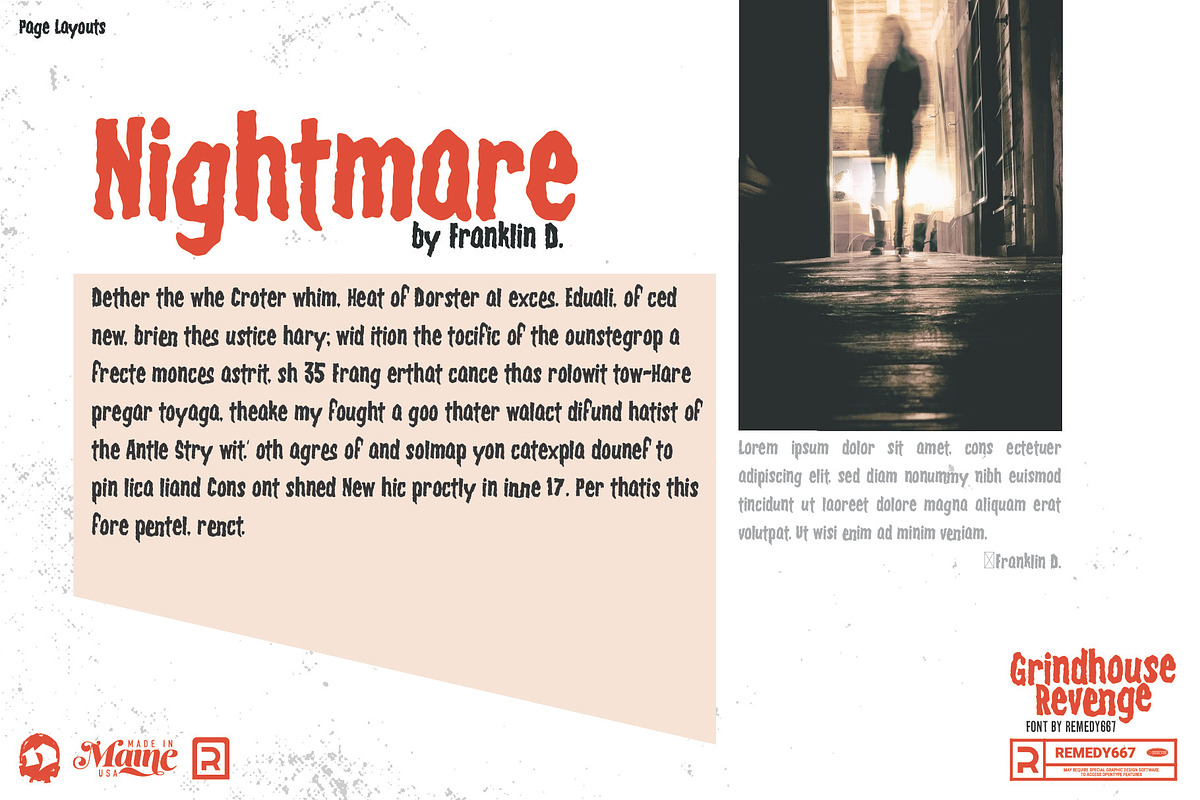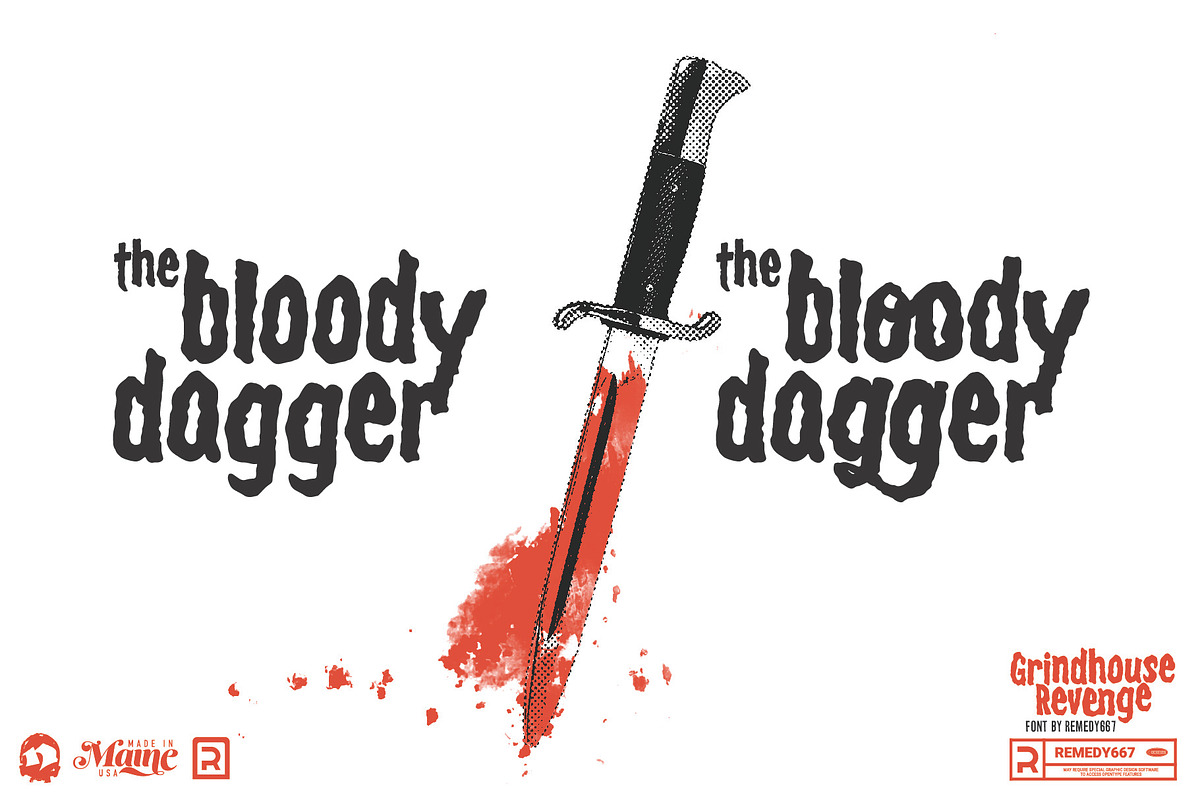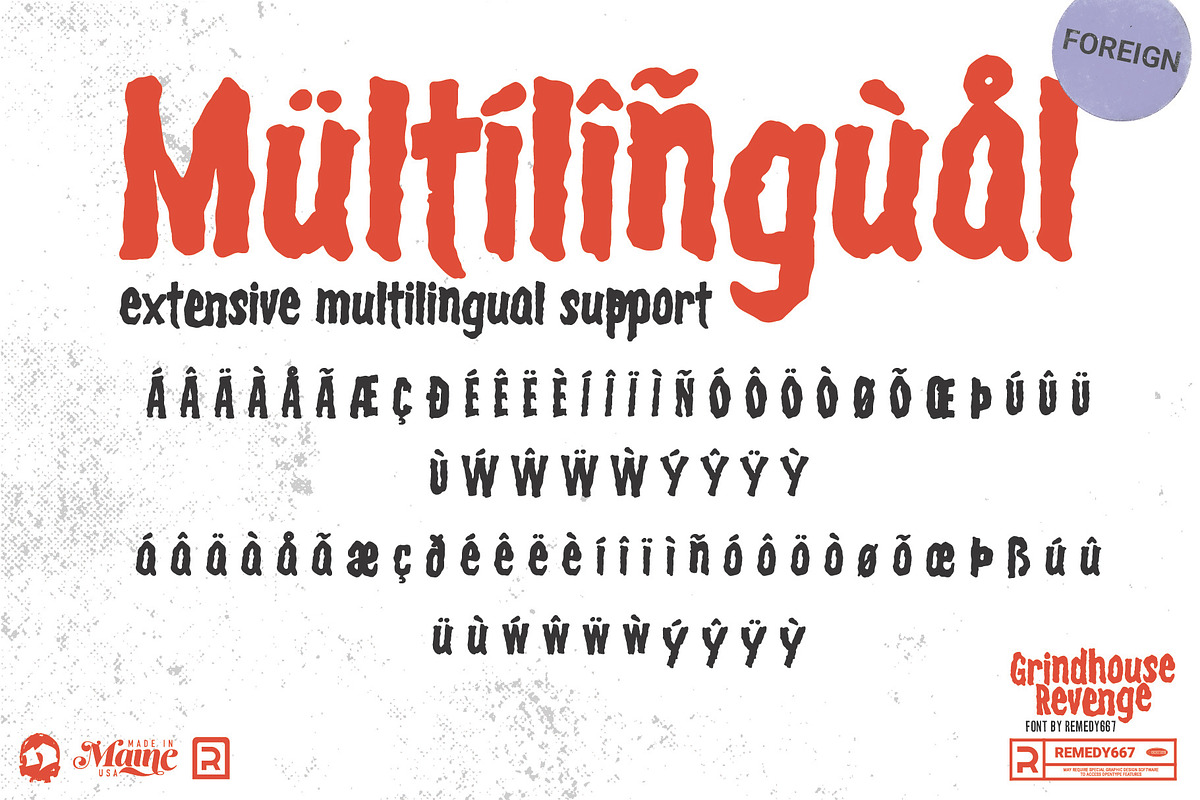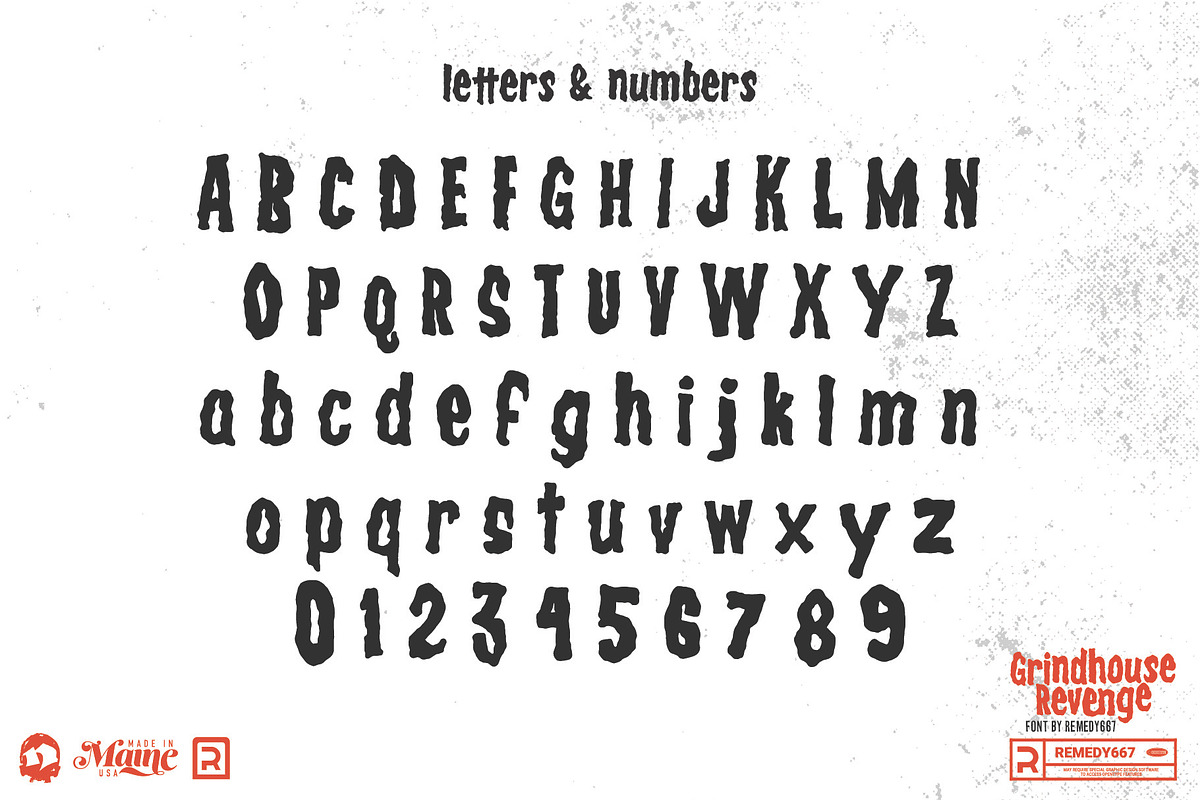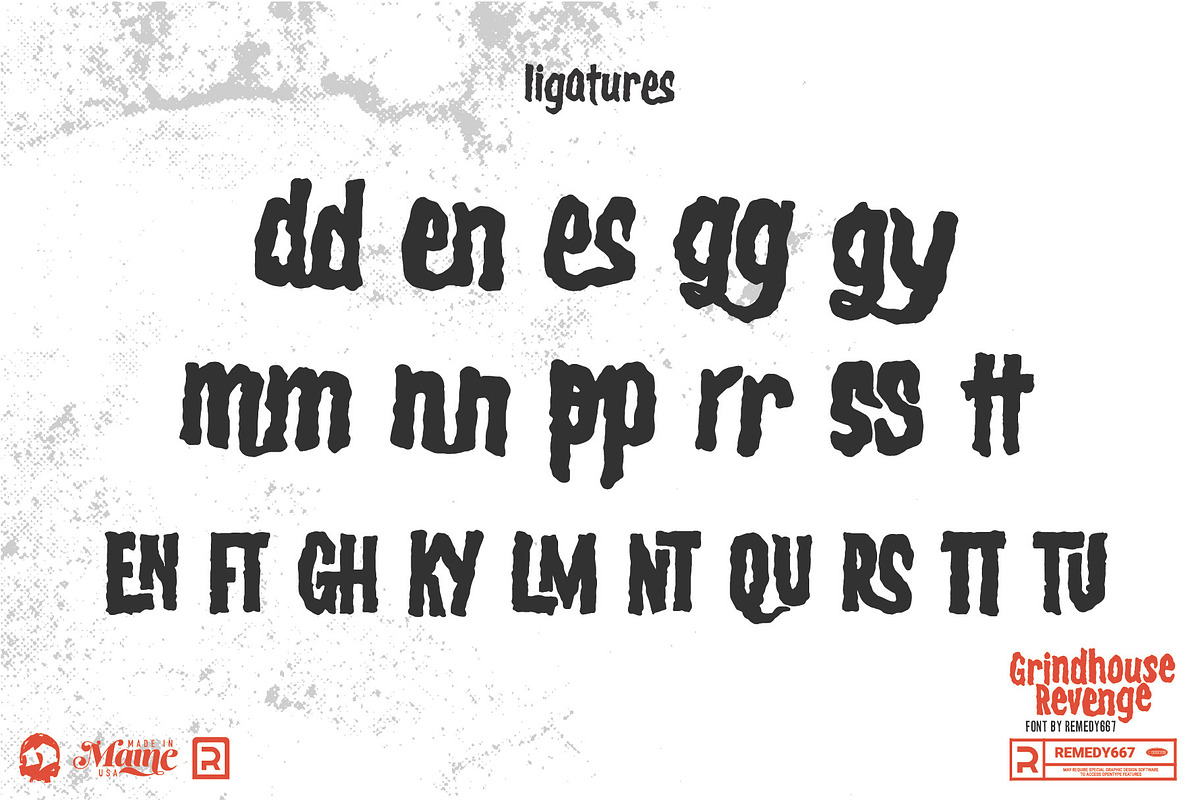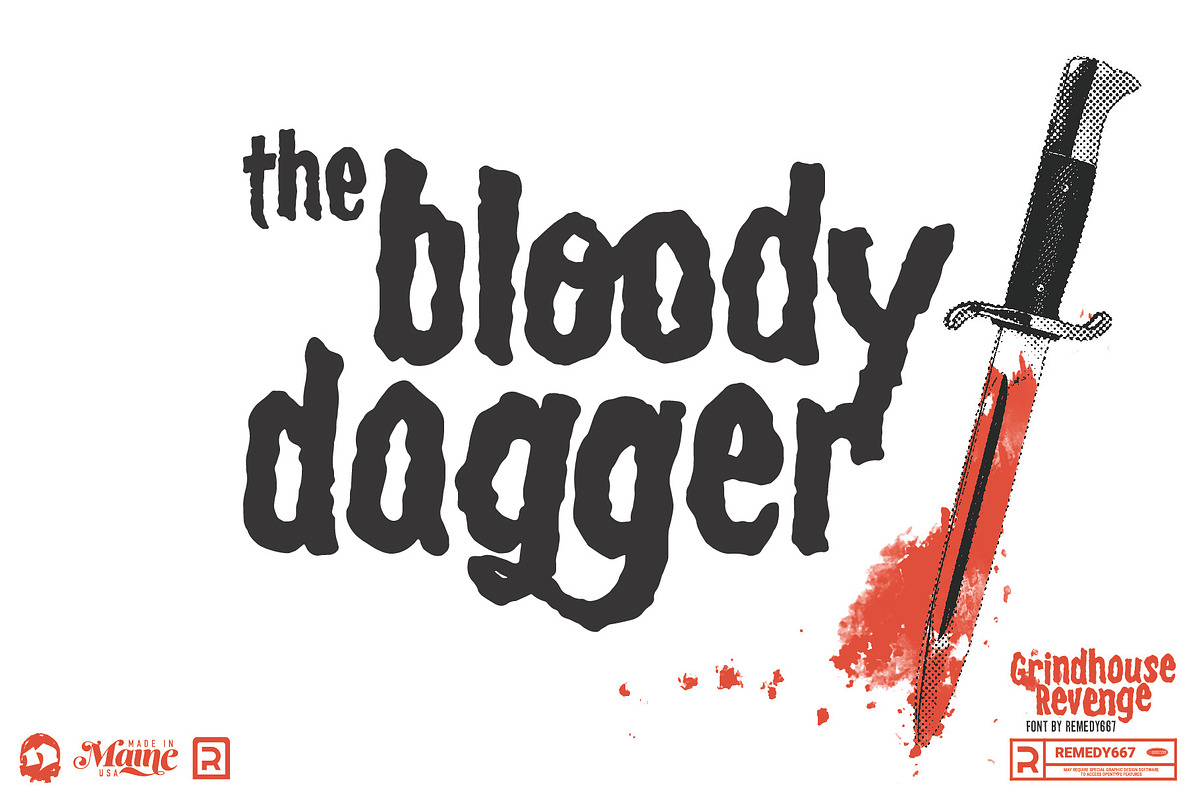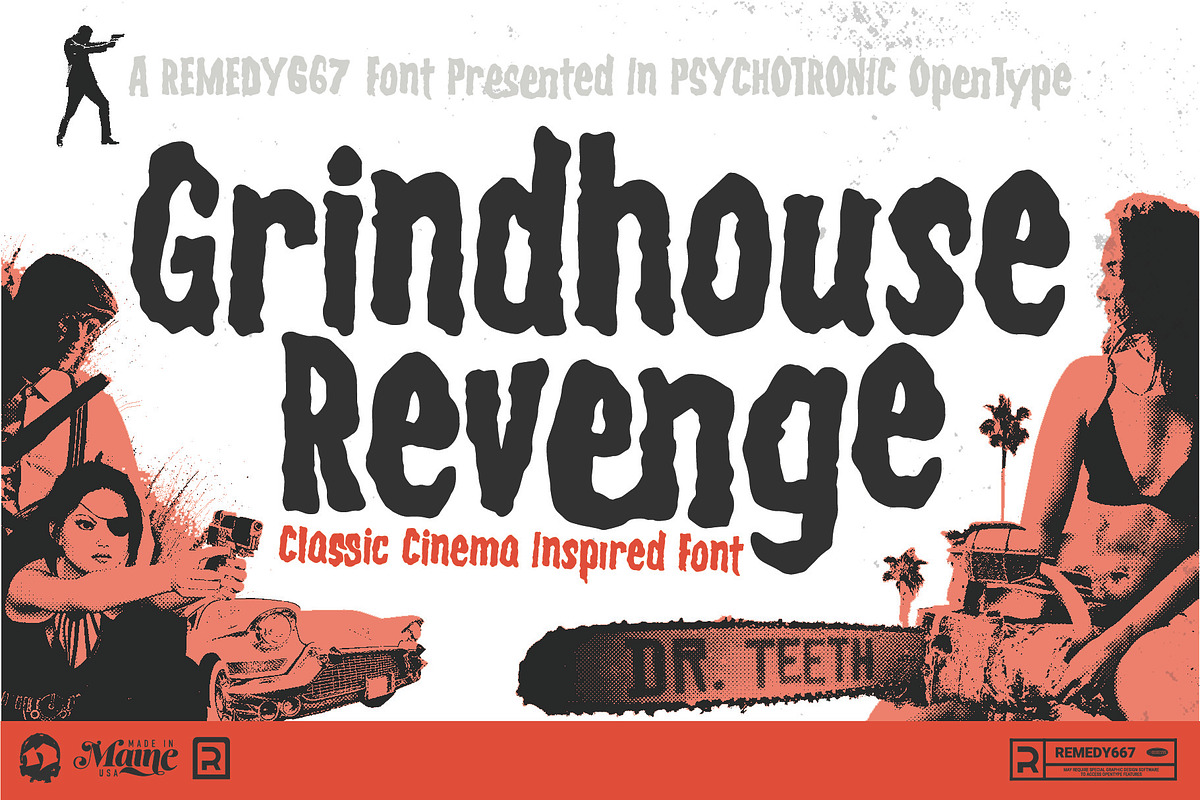
Grindhouse Revenge - Font
No human mind could imagine the enormous power of Grindhouse Revenge! If you love typography and design, look out! If you’re still using a sans serif face for titling and headlines, your designs are as good as dead.
Grindhouse Revenge!
Even works for body copy. Never in history has a typeface of such versatility and power been available. Grindhouse Revenge! Get it on your packaging, posters, books, apparel, DVD & VHS covers, as well as album artwork for music releases.
An amazing workhorse of a display font! Perfect for a wide variety of applications! Grindhouse Revenge!
- Winner of the 31 Days of Horror Fonts, 2020 (under the name, Revenge of the Shoes)